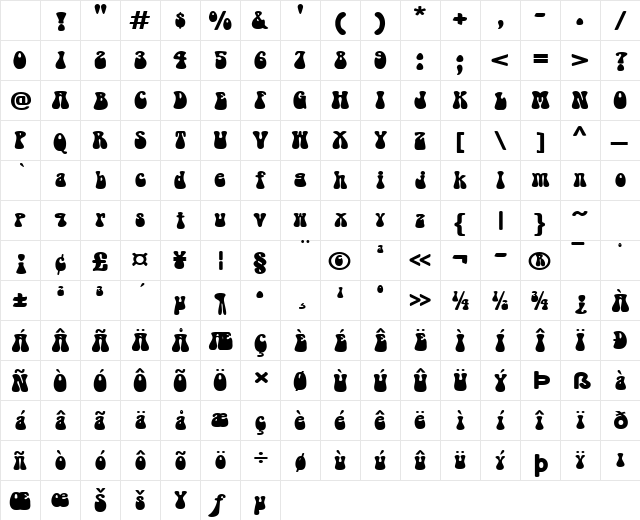
Complete Groovy-Extended Normal glyph index. Displaying only characters natively supported by Groovy-Extended Normal font.
Groovy-Extended is a composed and adaptable typeface that performs quietly and consistently across a wide range of design contexts.